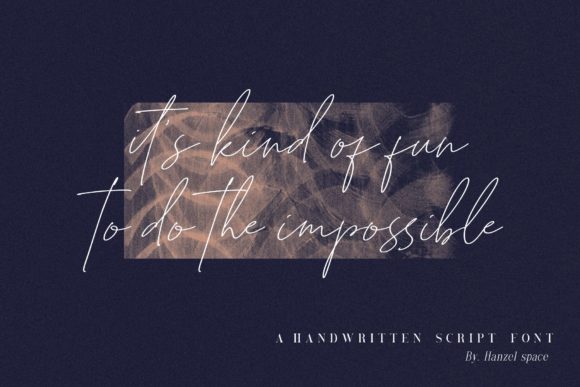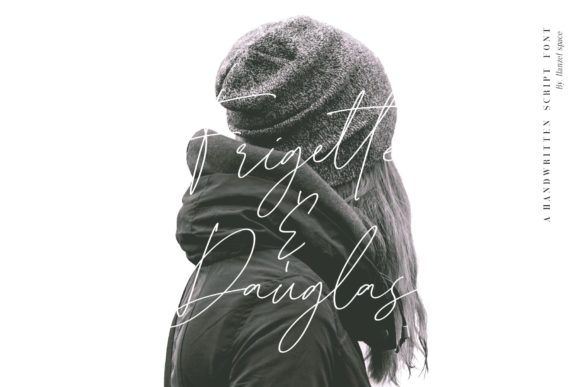
Brittish Shorthair Font
db-ku.com - Script & Handwritten -- Brittish Shorthair is a simple and elegant handwritten font. It looks stunning on wedding invitations, thank you cards, quotes, greeting cards, logos, business cards and every other design which needs a handwritten touch.